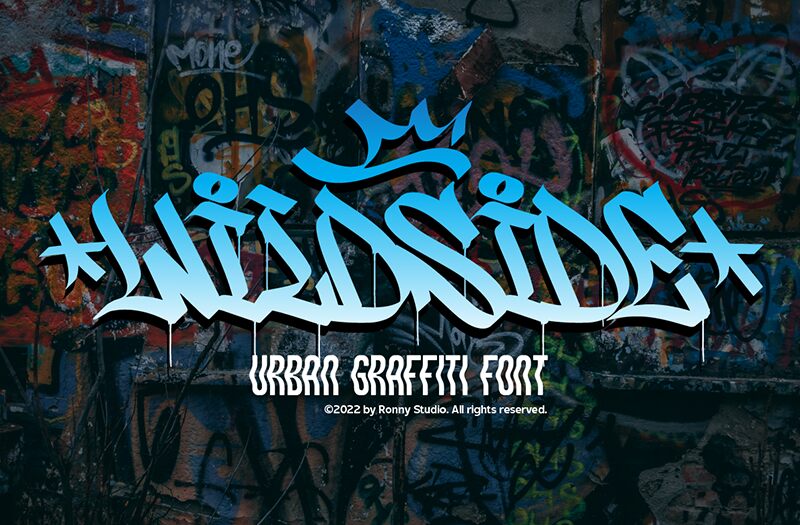
Wildside, a captivating graffiti-inspired font designed by Ronny Studio, commands attention with its bold, condensed strokes. Exuding an urban, gritty aesthetic, this typeface radiates a sense of raw energy and unapologetic expression. Its striking letterforms, with their sharp edges and dynamic curves, evoke the vibrant spirit of street art, making it a compelling choice for projects seeking a bold, impactful visual statement.
The versatility of Wildside shines through its ability to adapt to diverse design contexts. Its condensed width lends itself well to headlines, logos, and branding applications, where its powerful presence can make a lasting impression. Additionally, the font's versatility extends to packaging design, editorial spreads, and even digital interfaces, where its distinctive character can elevate the visual experience.
Wildside